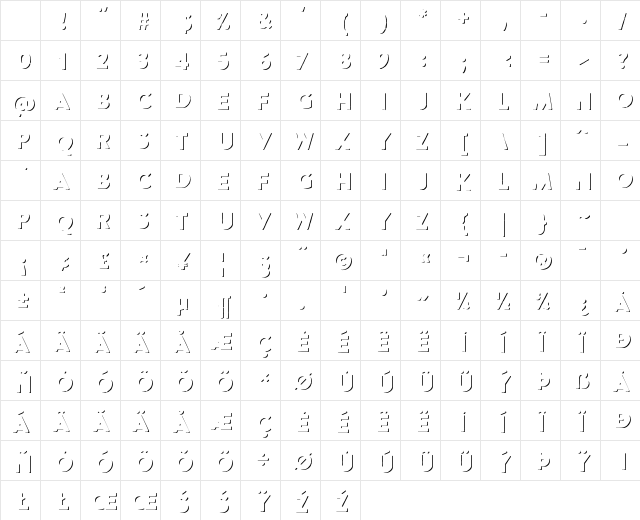
Complete Brandon Printed Shadow glyph index. Displaying only characters natively supported by Brandon Printed Shadow font.
Brandon Printed is built around its visual character rather than neutral utility - its distinctive forms are designed to make an impression at display sizes.
Font Pairing: Pair with a clean neutral sans-serif for body copy to let Brandon Printed's character lead without overwhelming the composition.
Pro Tip: Use Brandon Printed exclusively at display sizes - it was designed to be seen, not read at length. Let a neutral companion handle body copy.